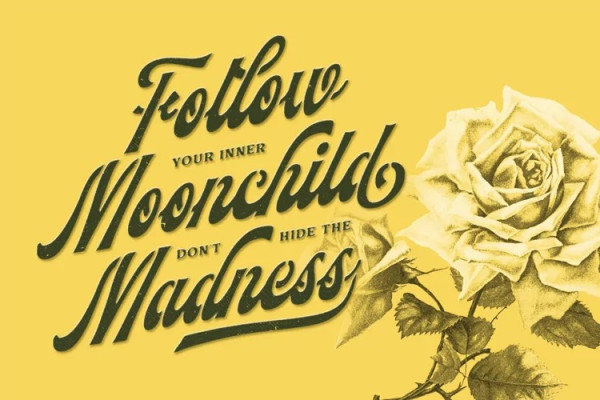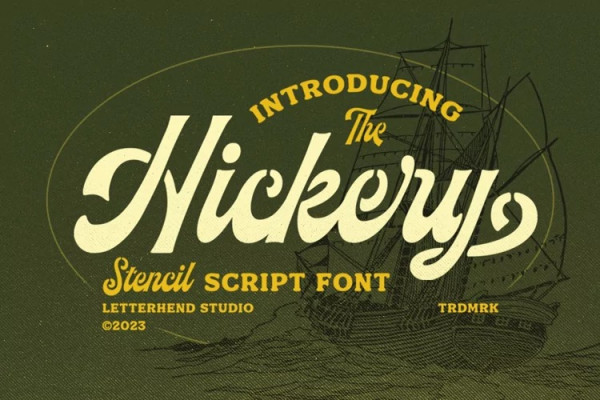
Hickery Script Font
Hickery Script Font, is a captivating stencil script font that effortlessly infuses your designs with a touch of class and a dash of vintage charm. Its unique blend of elegance and ruggedness makes it the perfect choice for projects seeking a timeless and sophisticated appeal
This font perfectly made to be applied especially in logo, and the other various formal forms such as invitations, labels, logos, magazines, books, greeting / wedding cards, packaging, fashion, make up, stationery, novels, labels or any type of advertising purpose.